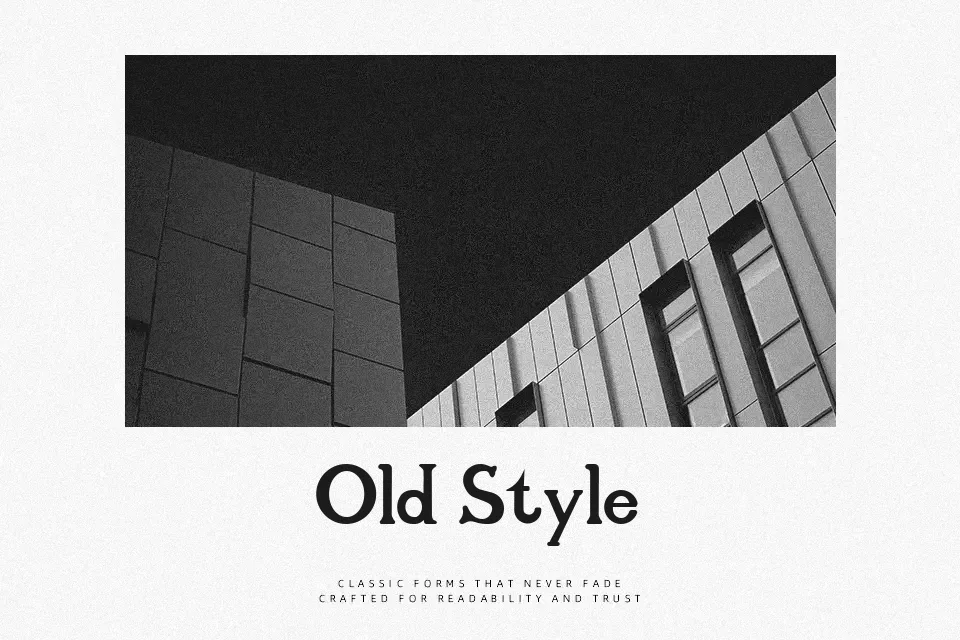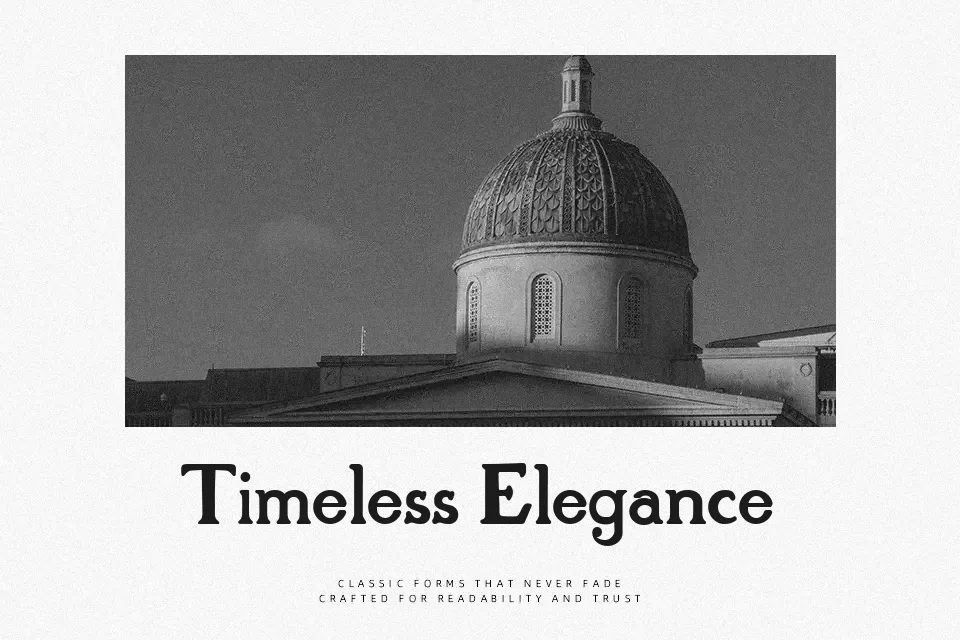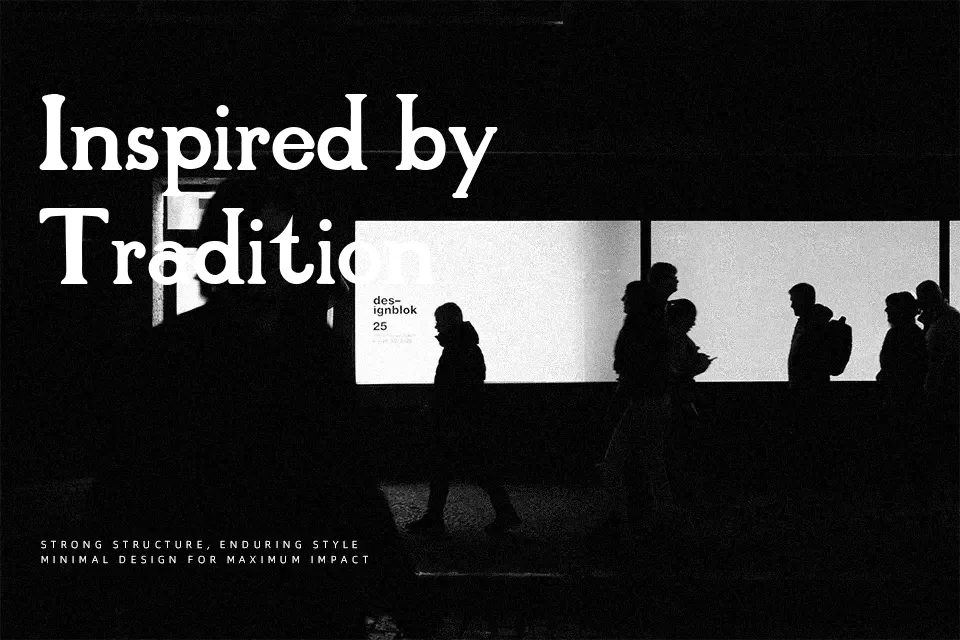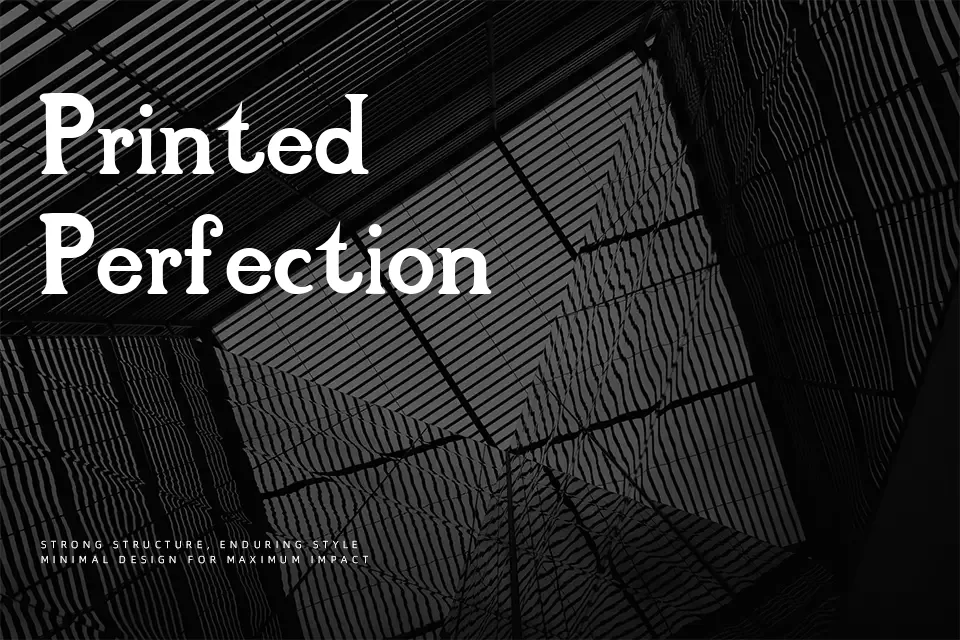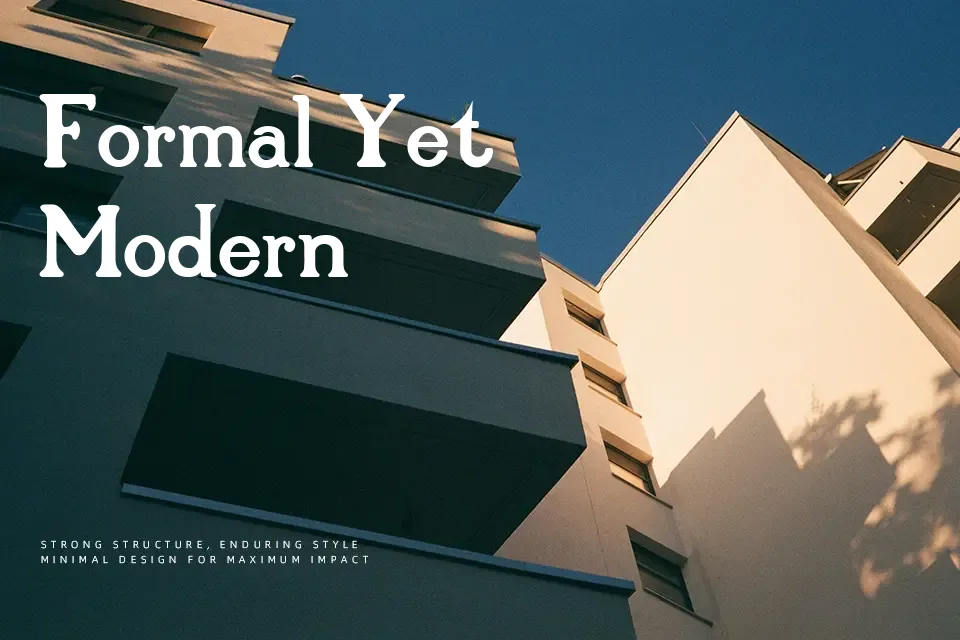
Tarotheque Font
Designed by gschaftlhuber
Tarotheque Font features an antique display serif construction characterized by organic, hand-rendered strokes and deliberate variations in line weight. The letterforms display modest stroke contrast paired with irregular, slightly curved serifs that evoke the charm of early commercial printmaking. Proportions lean slightly condensed across uppercase structures, accompanied by balanced character spacing that ensures individual glyphs remain legible in prominent titling. While the typeface delivers strong visual atmosphere in vintage packaging and book covers, its uneven organic edges reduce reading comfort across continuous body copy.
– vintage book covers
– tarot card titling
– craft packaging labels
– occult poster headlines
– continuous body text
– mobile interface labels
– corporate financial reports
– technical instruction manuals
Perfect for branding, headline, and packaging, with a classic and decorative style.